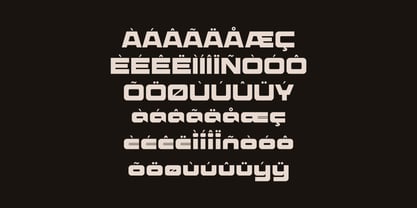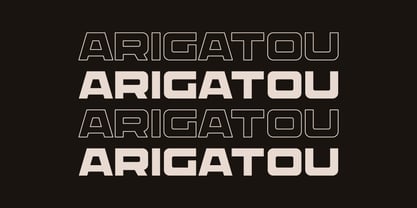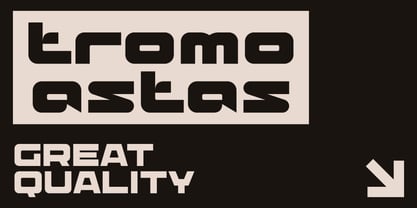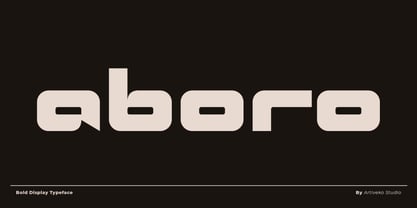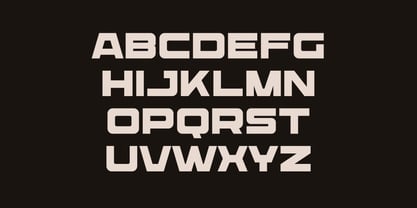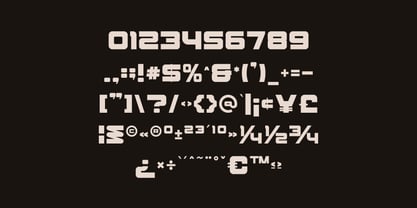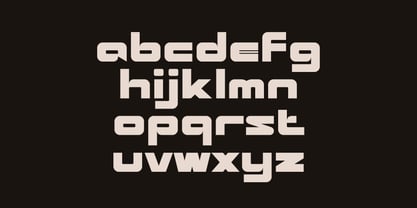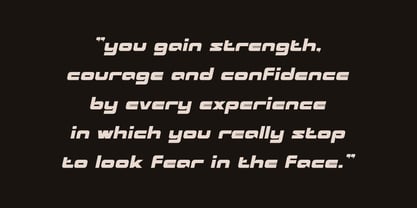
Aboro
by Artiveko
The Aboro Font Family was designed by Iwan Alwan and published by Artiveko. Aboro contains 2 styles and family package options. More about this family
Aboro is a strong and bold display typeface crafted to deliver maximum visual impact. Featuring a heavy weight, solid structure, and confident letterforms, Aboro commands attention in every composition, making it ideal for headlines, posters, logos, branding, packaging, and promotional campaigns. Its powerful presence instills a sense of authority and energy, perfect for modern advertising, streetwear, sports visuals, and striking brand identities. Despite its robust design, Aboro ensures clarity and readability, allowing your message to shine through even in high-impact layouts. Aboro is not just a font; it’s engineered to dominate the visual space.
Designers: Iwan Alwan
Current Foundry: Artiveko
Artiveko is a font design team based in Indonesia, comprised of several talented font designers who commenced their careers in the font design industry in 2020. With a dedicated focus on crafting fonts, the team members bring their collective expertise and passion to every project they undertake. Situated in Indonesia, Artiveko draws inspiration from the vibrant cultural landscape of the region, infusing their creations with unique flavors and aesthetics.The team's font collection encompasses a diverse range of styles, including serif, sans serif, handwritten, and script typefaces. Each typeface is meticulously crafted to meet the demands of modern design while offering versatility and functionality across various applications. Whether it's the classic elegance of serif fonts, the contemporary appeal of sans serif designs, the personal touch of handwritten scripts, or the expressive flourishes of script fonts, Artiveko ensures that every font reflects their dedication to quality and innovation.Artiveko's fonts have garnered recognition and acclaim, with their works being featured on prominent social media platforms like Creative Market. Through these platforms, the team has been able to connect with a global audience of designers and typographers, further amplifying their reach and influence in the industry. Their fonts are celebrated for their impeccable craftsmanship, attention to detail, and ability to elevate design projects with style and sophistication.As Artiveko continues to evolve and expand its font collection, the team remains committed to pushing the boundaries of typography and setting new standards of excellence. With a relentless focus on creativity, innovation, and collaboration, Artiveko strives to inspire and empower designers around the world with their distinctive and versatile font designs.